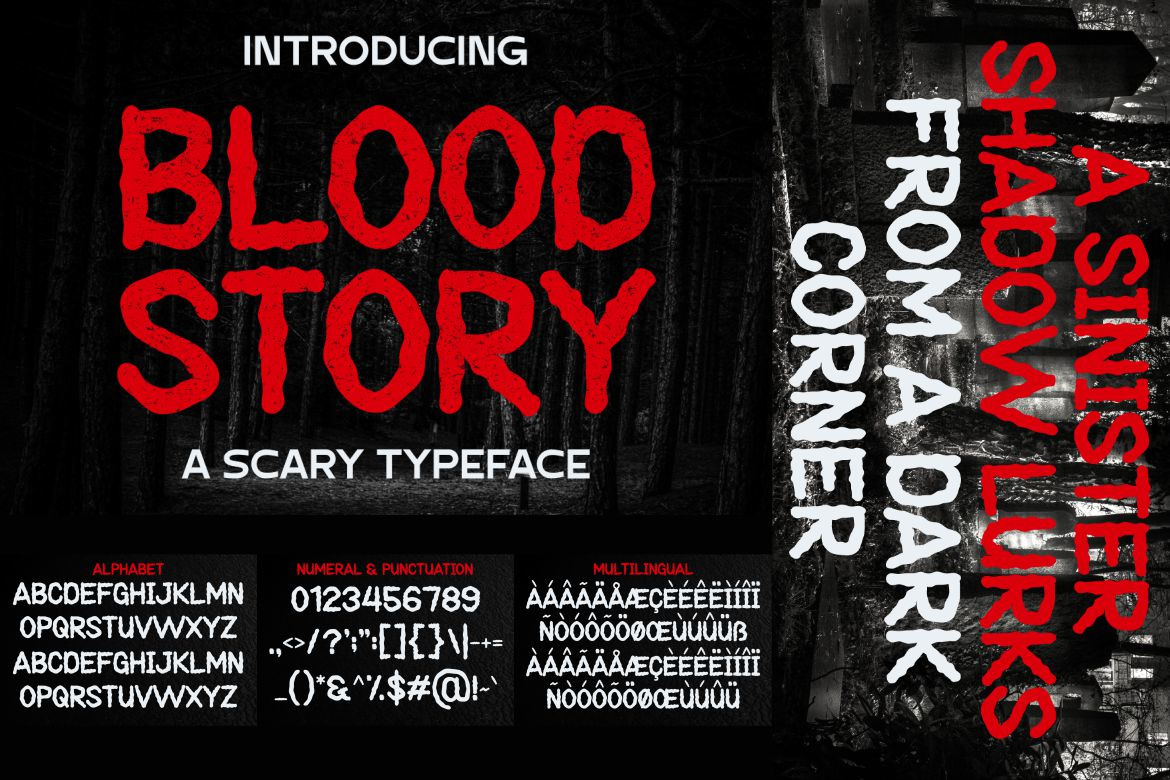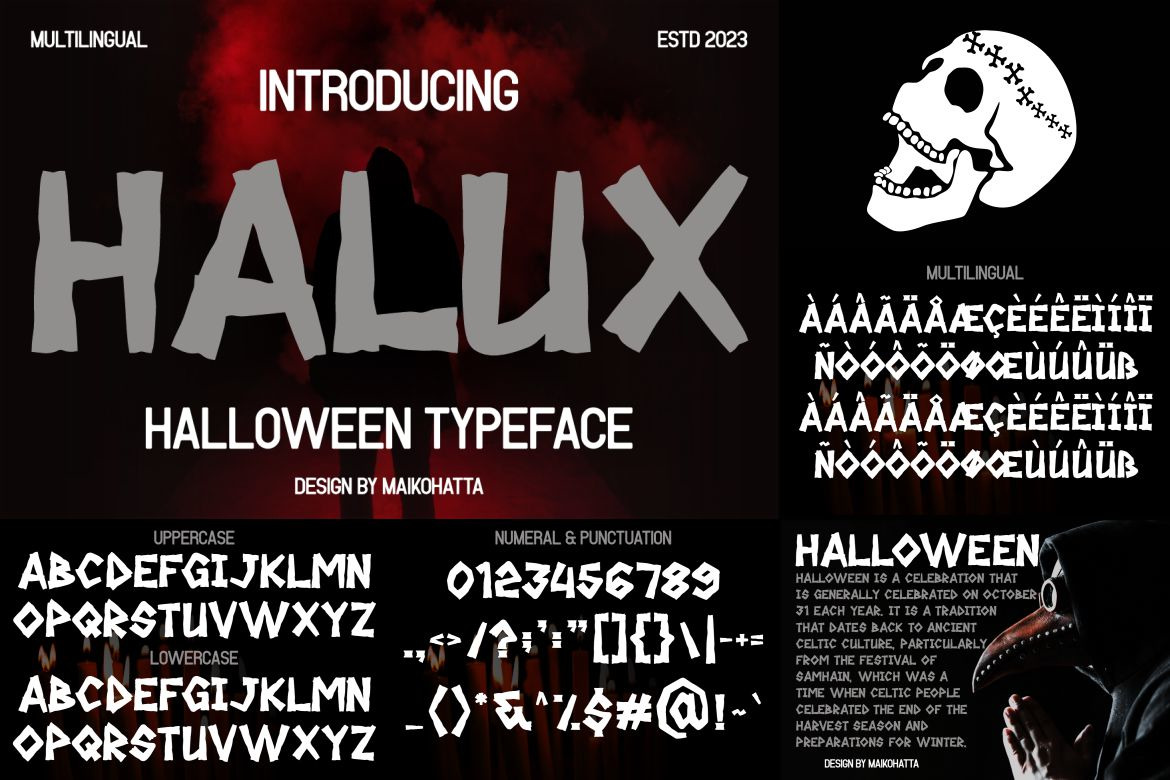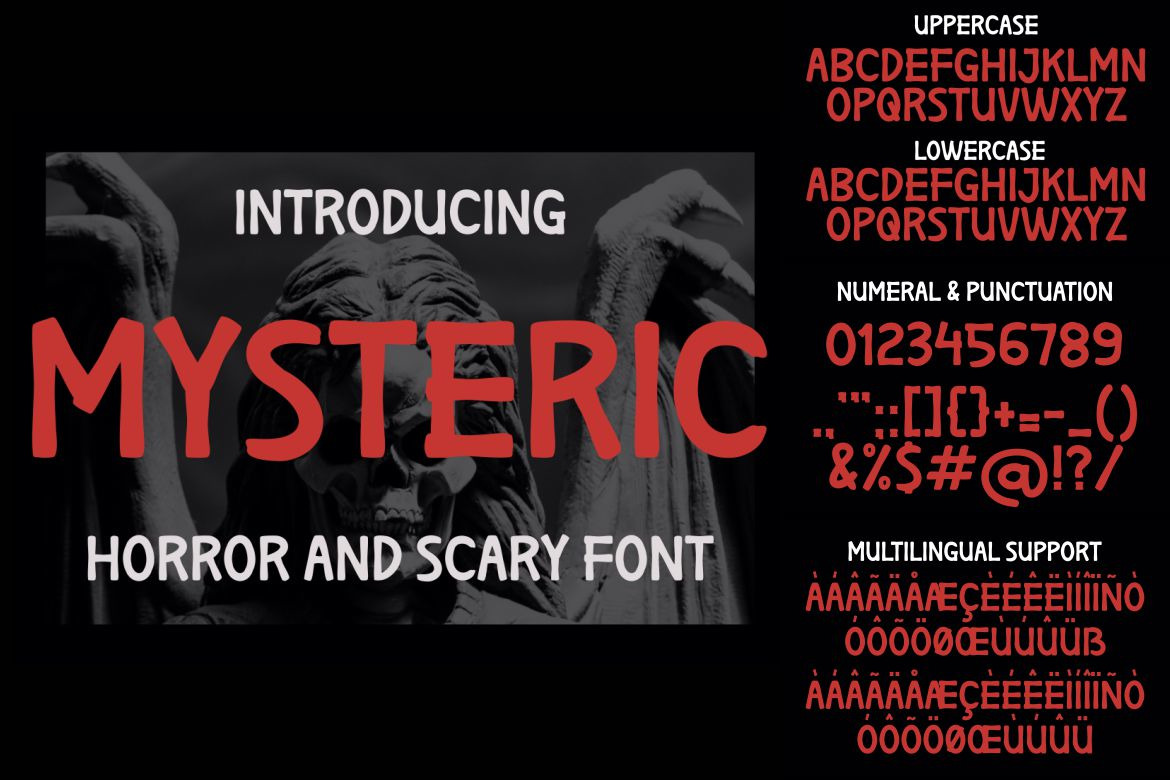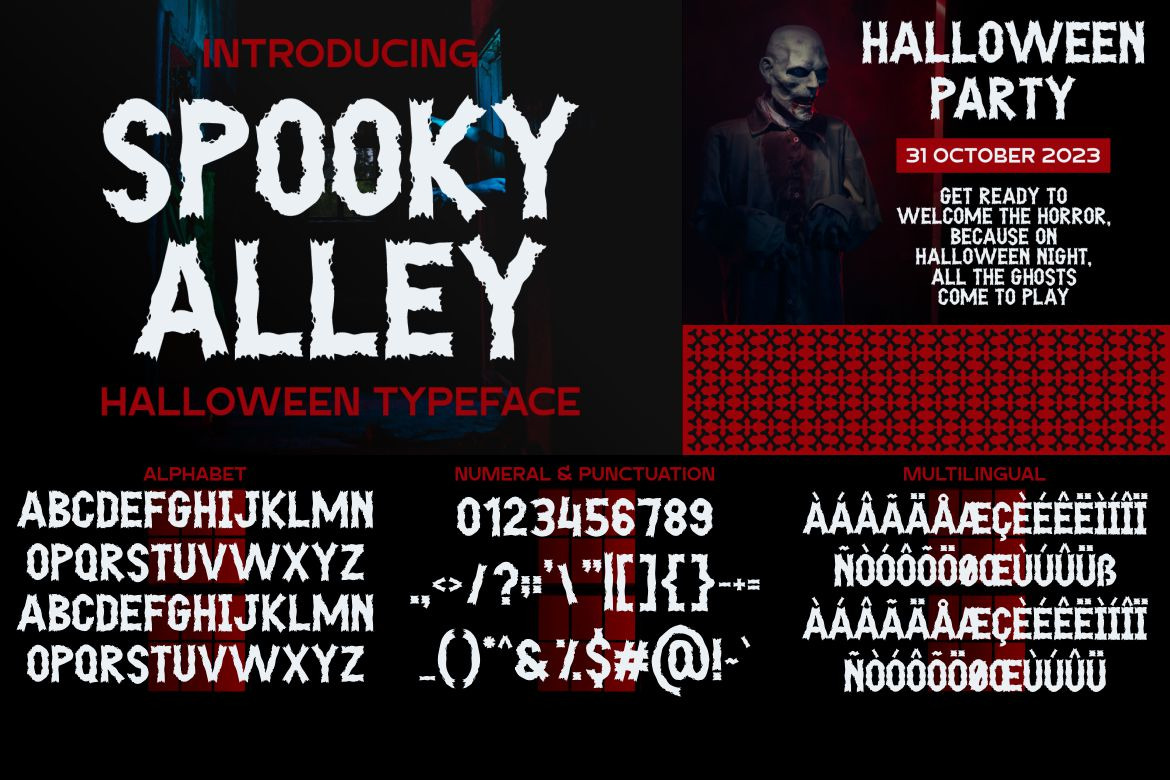
Halloween Font Bundle
Introducing our new product **Halloween Font Bundle** - Horror Display Typeface
This Font is a type of font specifically designed to create a spooky, mysterious atmosphere and depict the spirit of Halloween celebrations. This font can be used in various Halloween-related media, such as party invitations, posters, merchandise designs, greeting cards, warning signs, or within website designs with Halloween themes.